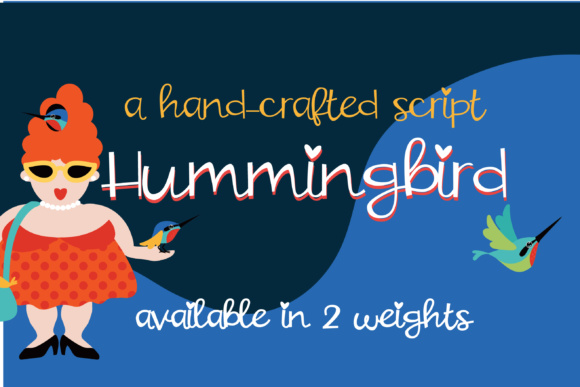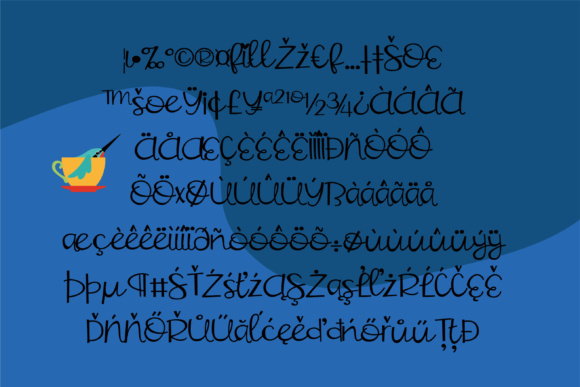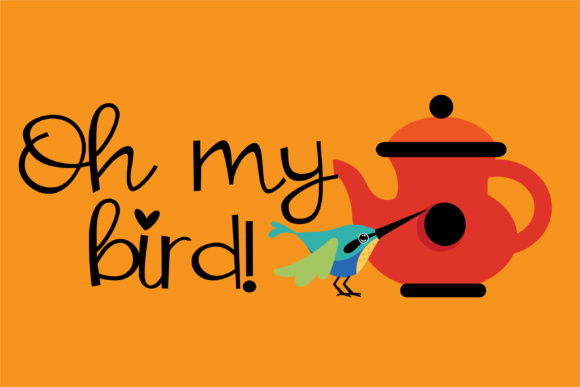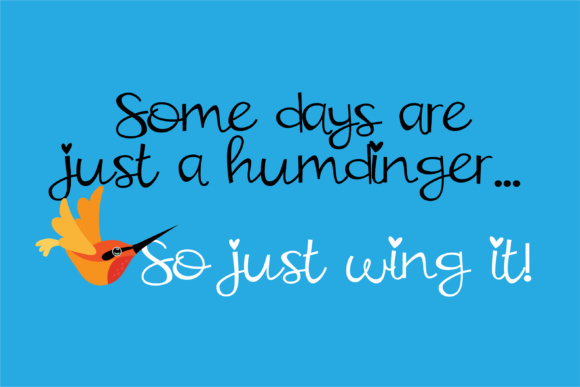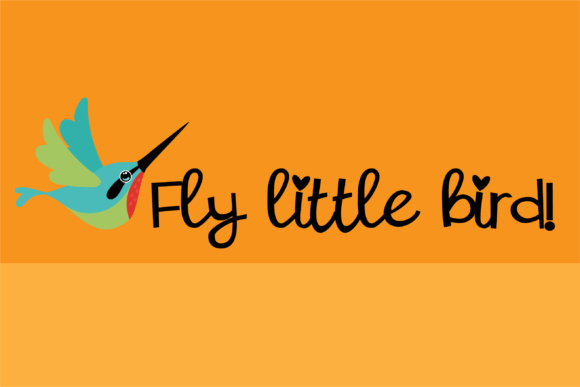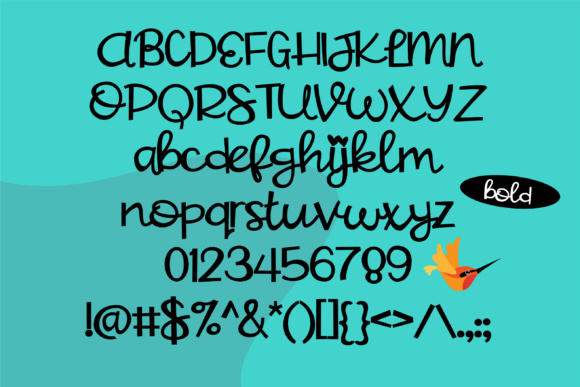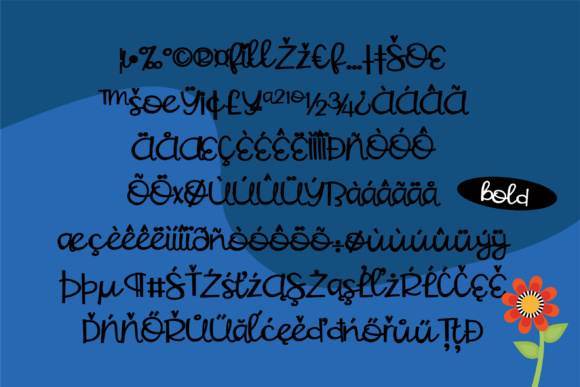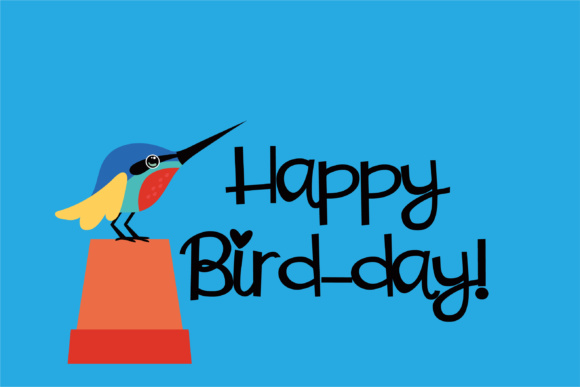
Hummingbird Font
About Hummingbird Font
This adorable hand-printed script has little hearts for the dots of the lowercase “i” and “j” and comes in 2 weights: regular and bold.